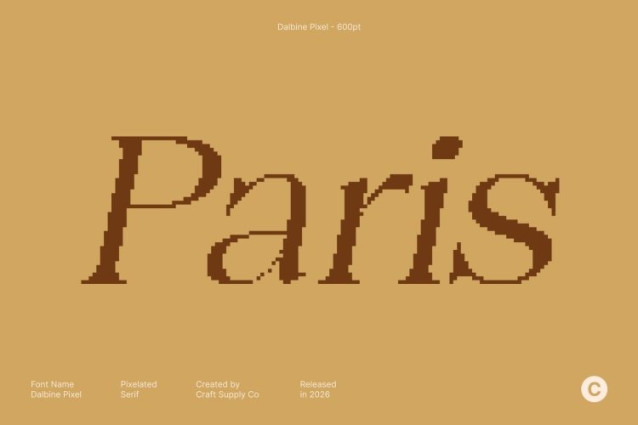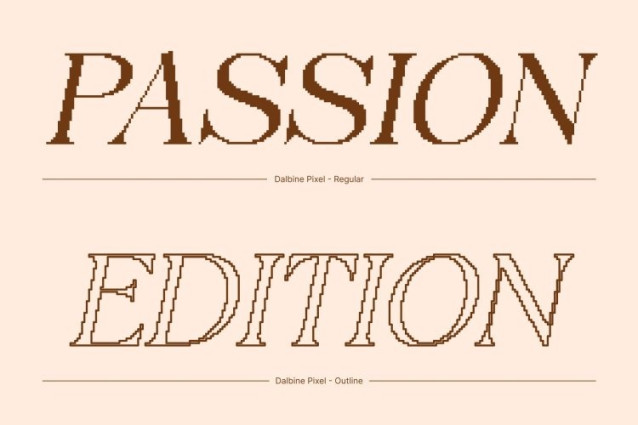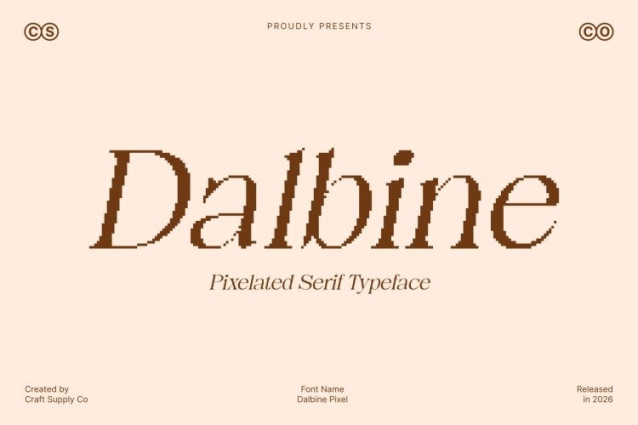
Dalbine Pixel Font
Dalbine Pixel Font This is a sleek modern serif font that exudes sophistication and professionalism. Its clean lines, balanced proportions, and subtle details make it perfect for projects that demand a luxurious, polished, and timeless aesthetic.
Professional and Versatile Design
Designed for corporate and editorial applications, this font elevates branding, advertising, and print or digital layouts. Its refined serif forms convey authority and elegance while maintaining excellent readability and visual harmony.
Sophisticated Touch for High-End Projects
With its graceful curves and precise structure, this font adds a sense of luxury and class to every composition. This font ensures that your design communicates professionalism and refined taste, making it ideal for premium branding and high-end creative projects.
Ideal for Corporate and Luxury Applications
From corporate identities and promotional materials to websites and editorial layouts, this is the go-to choice for projects seeking timeless sophistication. Its modern serif style balances contemporary clarity with elegant tradition, delivering a distinguished and professional presence in every design.